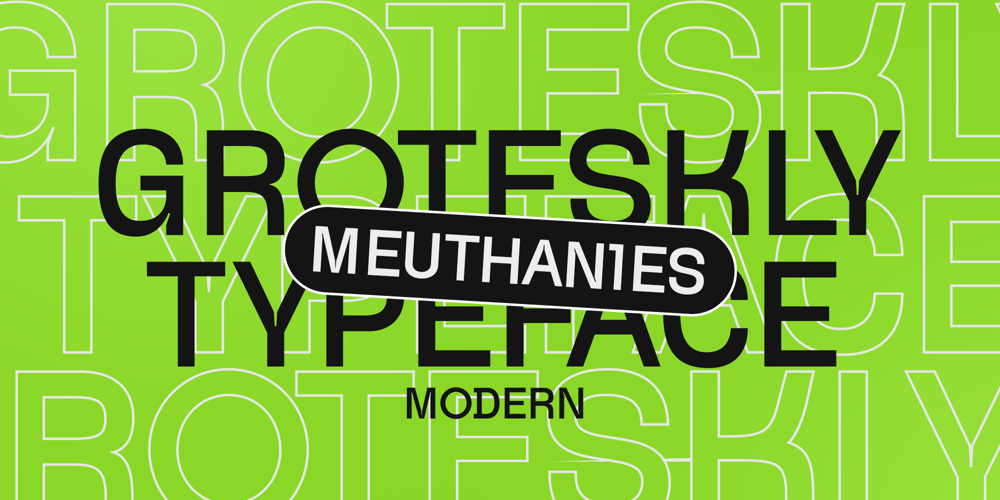
Meuthanies
Meuthanies font
Meuthanies Font Family was designed by Zainul Hamid and published by Magnatype Studio. Meuthanies contains 1 styles and family package options. Introducing Meuthanies Grotesque Moderna versatile and contemporary sans-serif typeface that combines clean lines with a bold aesthetic. This font is perfect for a wide range of design projects, from branding and logos to editorial design and web interfaces. Its sleek and modern appearance ensures your text stands out, making it ideal for both digital and print mediums.